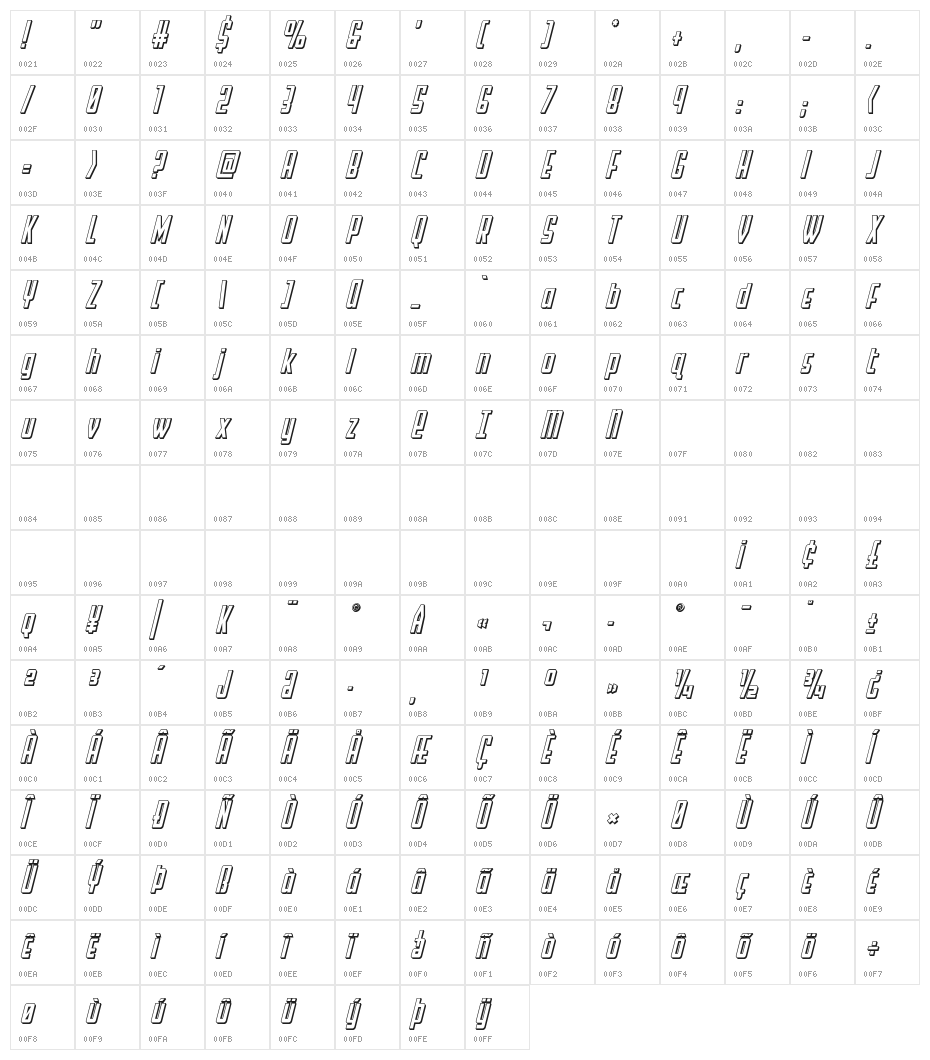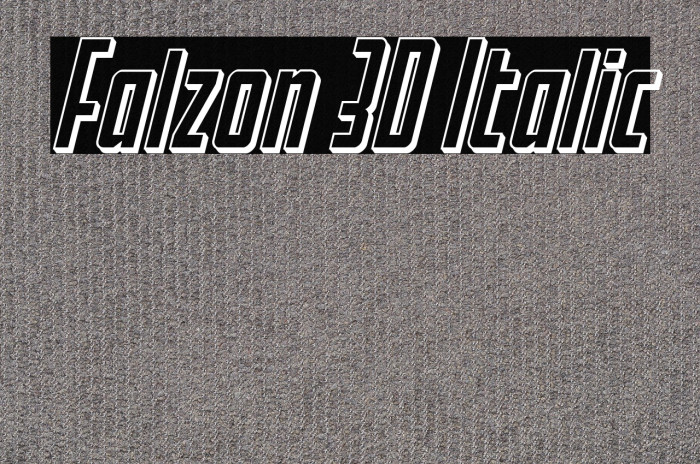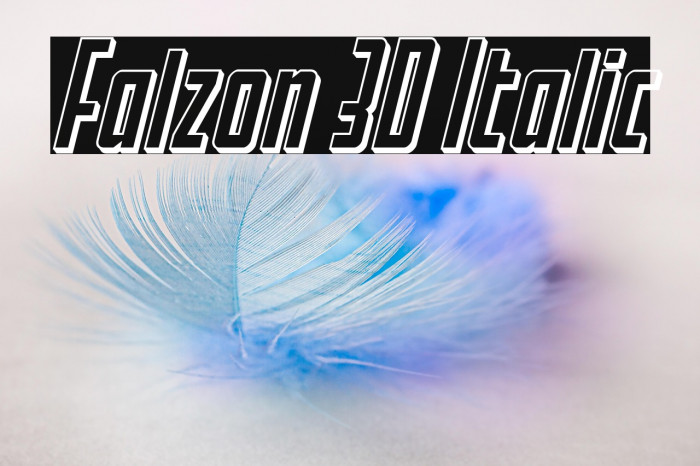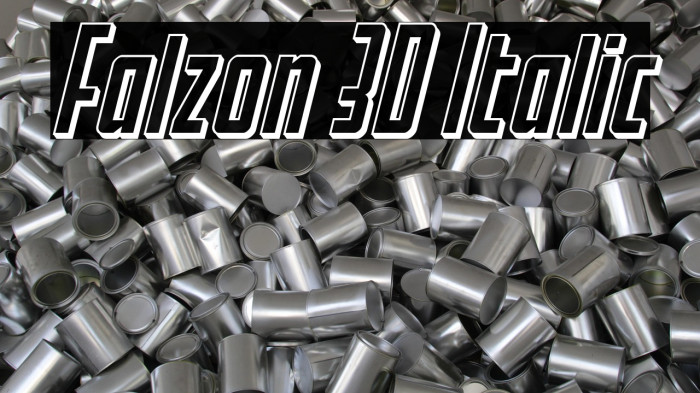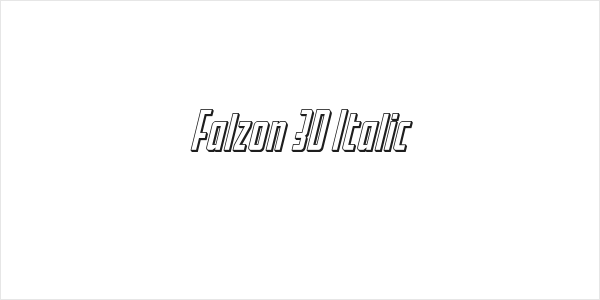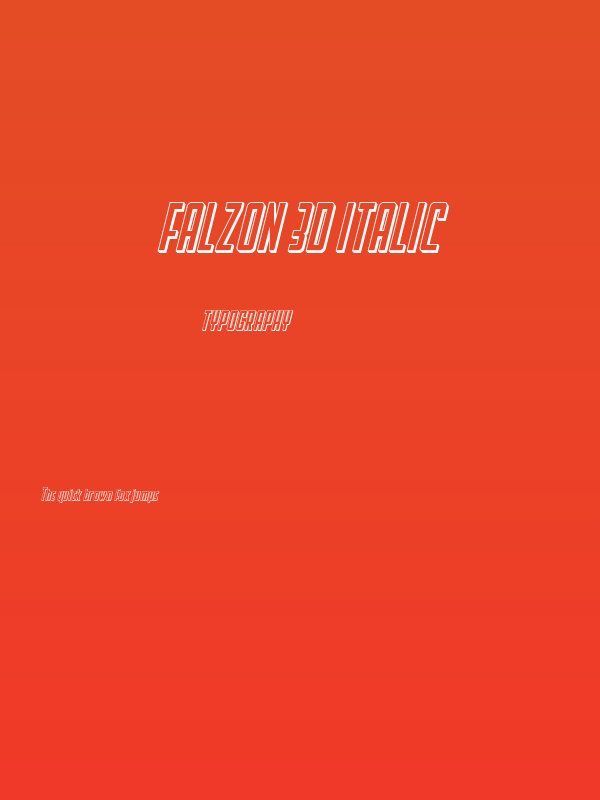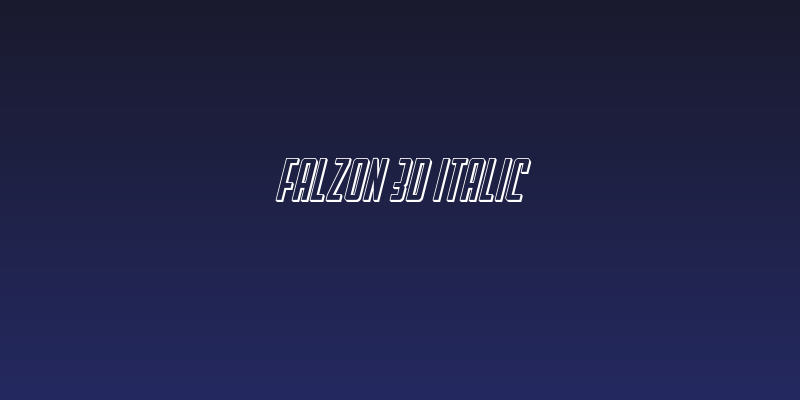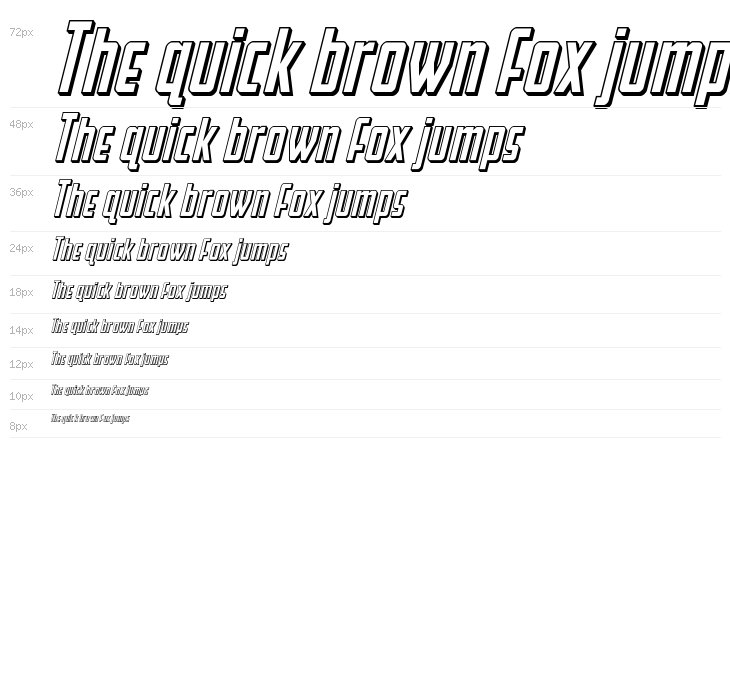
Falzon 3D Italic Font
Falzon 3D Italic Description
This font features a bold, italicized style with a distinct 3D effect, giving it a dynamic and modern appearance. The characters are outlined, creating a shadow-like effect that enhances the three-dimensional look. The uppercase and lowercase letters maintain a consistent slant, contributing to the italicized feel. The numerals and special characters follow the same design principles, ensuring uniformity across all glyphs. The font's geometric structure and sharp angles make it stand out, while the spacing between characters is tight, adding to its compact and impactful presentation.
| Proposed Projects | Ideal for futuristic designs, video game titles, posters, and branding that requires a bold, modern touch. |